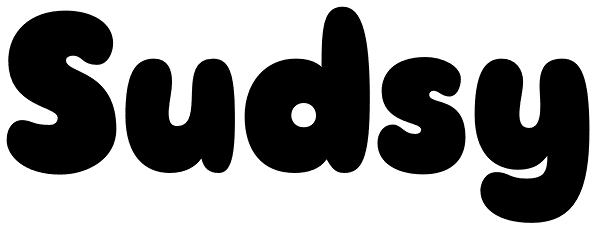
Sudsy
Sudsy has been copied out of that school project you did when you were 12. Spending two weeks of homework time on the headings got you the most unfair C ever! The two Sudsy fonts give you the ultimate soapy, floaty and bubbly headlines, and it's a...
Sudsy
Sudsy Outline